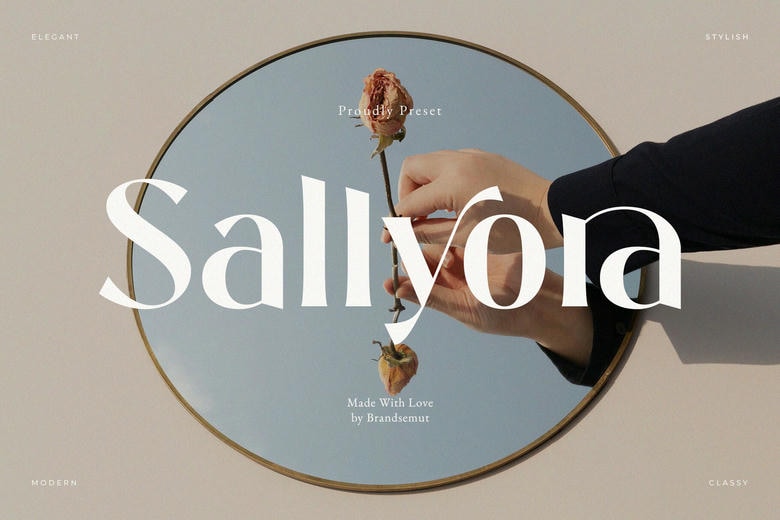
Sallyora Font
Sallyora is a modern stylish serif font with sophisticated, warm, and elegant aesthetic that adds to your creative work. With an enticing blend of conventional serif to present-day vibrancy, Sallyora, full of beautifully crafted capital and lower-case imagery, is perfect for affluent branding, wedding invitations, cosmetic packaging, lifestyle editorial, and Instagram quotations.
Sallyora Serif Font